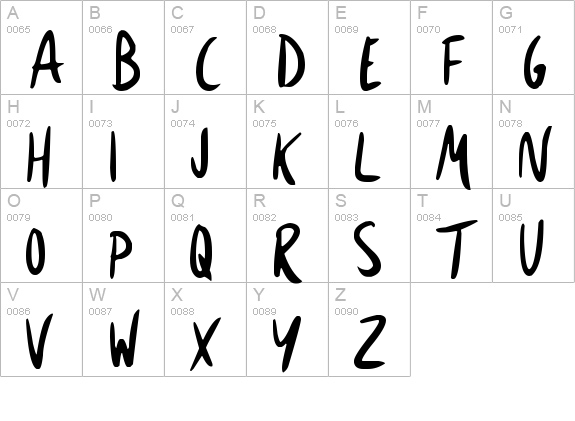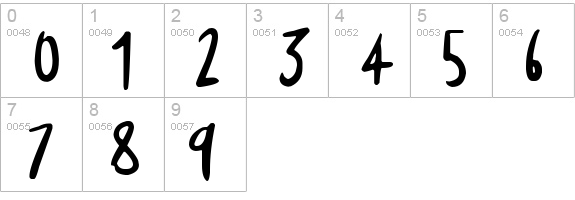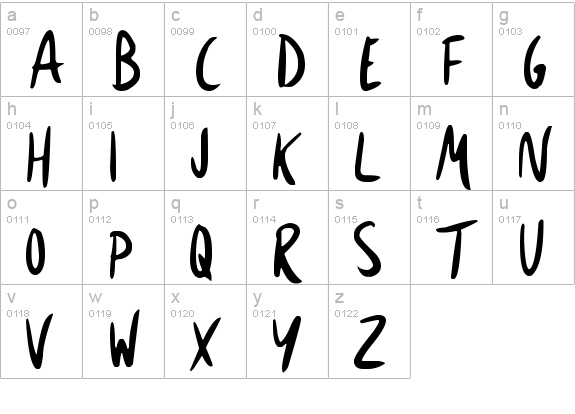
Expressive Inks Font Details
Expressive Inks is a free for personal use font in the Script > Handwritten category, designed by Darrell Flood. It has been downloaded 44 times and is available for Windows, Mac and Linux.
Expressive Inks font is a unique and creative typeface that embodies the essence of artistic expression. With its bold strokes and intricate details, this font is perfect for adding a touch of personality to your designs. The flowing lines and dynamic curves of Expressive Inks create a sense of movement and energy, making it ideal for projects that require a sense of spontaneity and creativity.